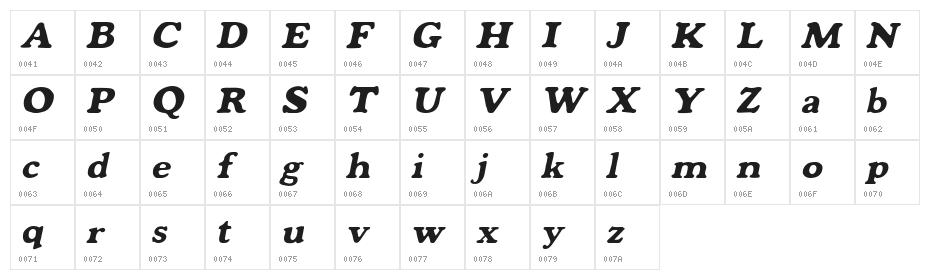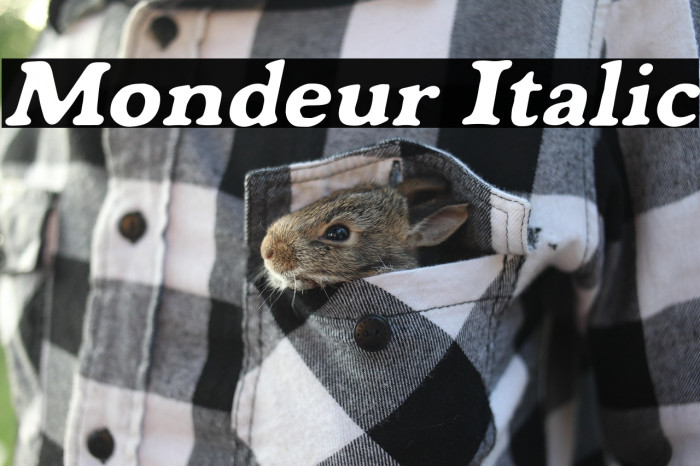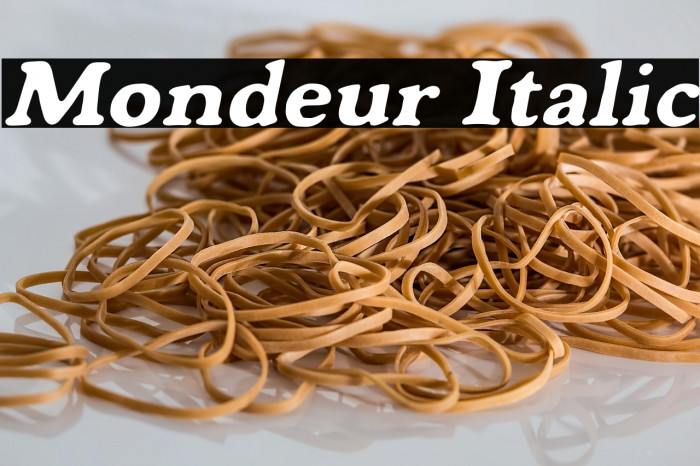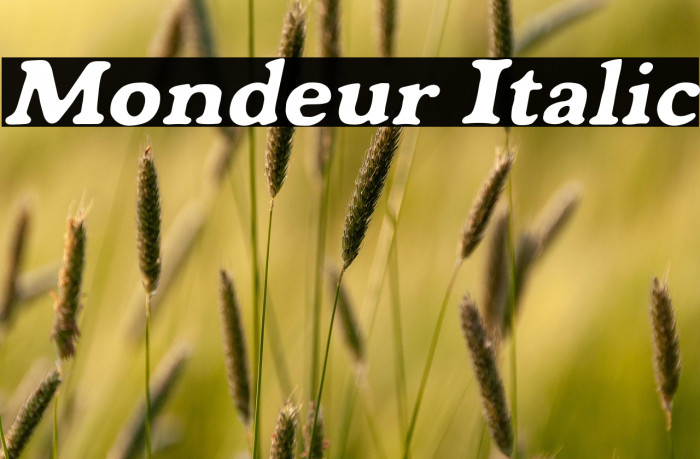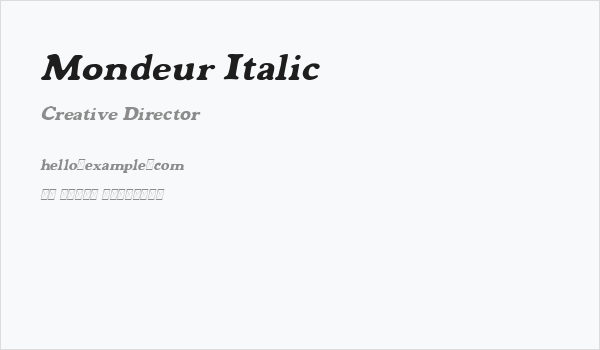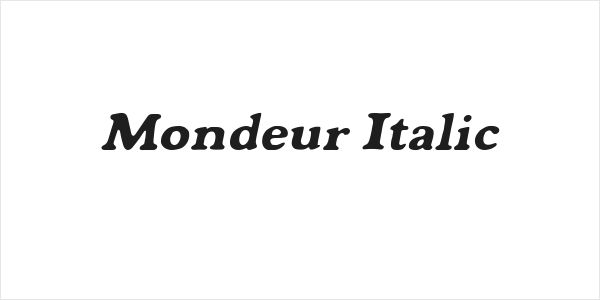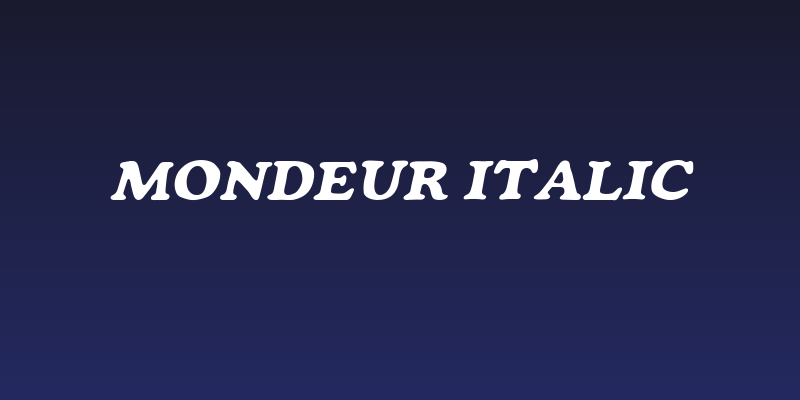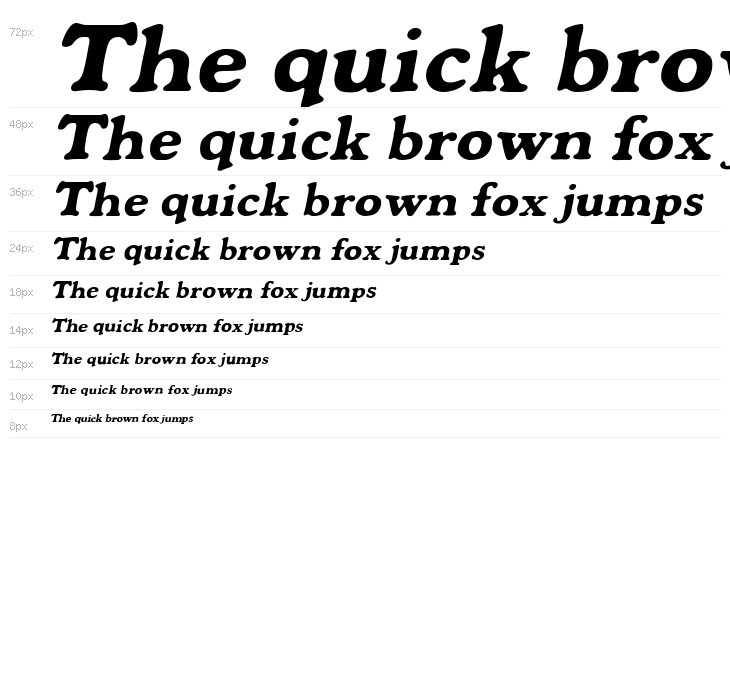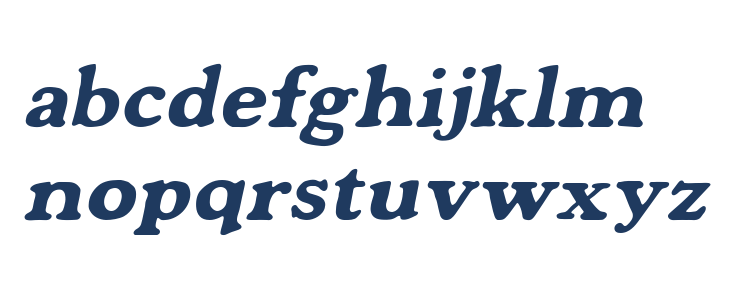
Mondeur Italic Font
Mondeur Italic Description
This font features a classic italic style with a strong presence, characterized by its bold and slightly slanted letterforms. The strokes are thick and consistent, providing a robust and impactful appearance. The serifs are pronounced, adding a touch of elegance and tradition to the overall design. The font maintains a balanced and harmonious look, making it suitable for various formal and creative applications. Its distinct italic nature gives it a dynamic and flowing aesthetic, enhancing readability while maintaining a stylish flair.
| Use Case | Headlines, Logos, Editorial design |
| Proposed Projects | Ideal for book covers, formal invitations, branding, and editorial design. |